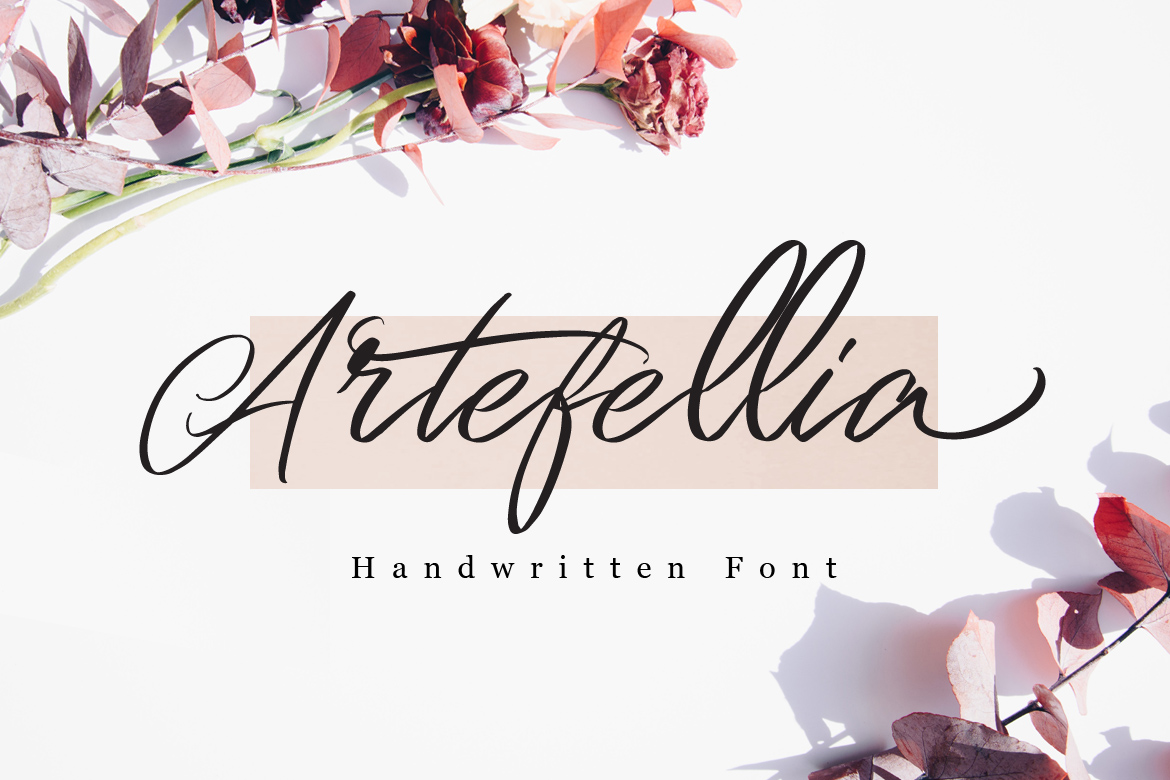
Artefellia – Handwritten Font
https://www.youtube.com/watch?v=pfDzGpv50dQ https://www.youtube.com/watch?v=-ZM-1-_L73wArtefellia is Signature Script Font with Handlettering Brush Style, with opentype feature include of the font. Suitable for design, element design, wedding, event, t-shirt, logo, badges, sticker, and awesome work, etc…
- Unique style fonts